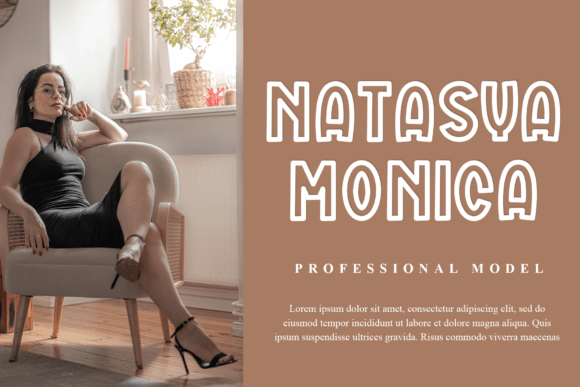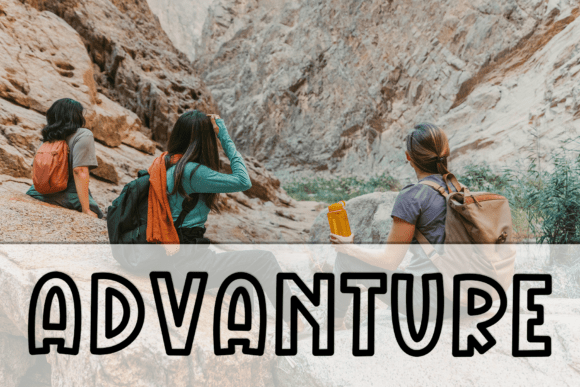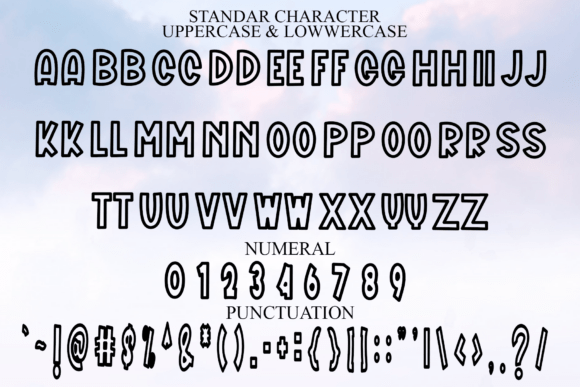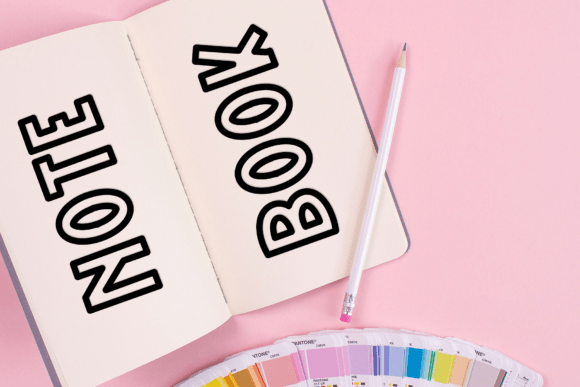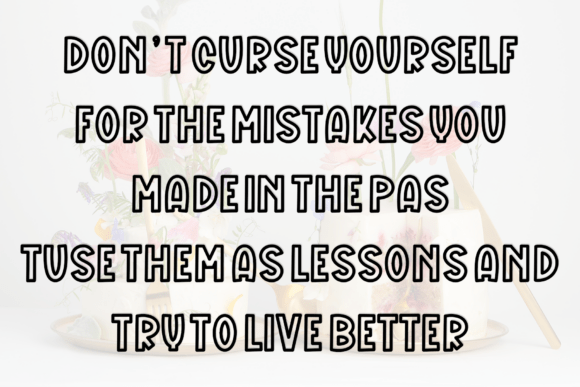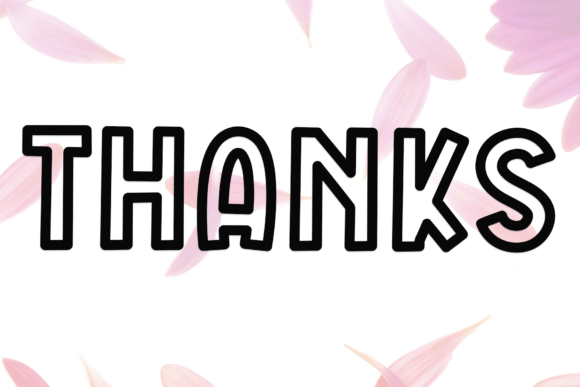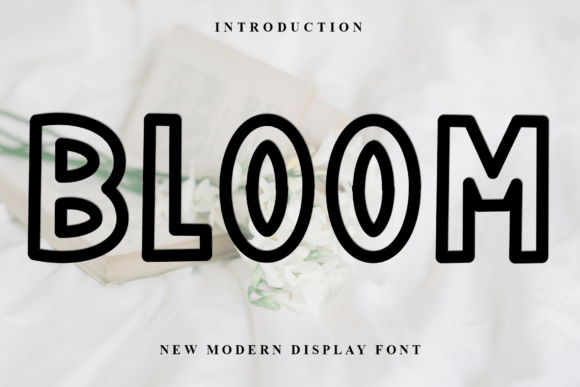
The Bloom Font: A Game-Changer for Designers and Crafters
I’ll never forget the moment I stumbled upon the Bloom font. I was working on a project for a client who wanted a unique and eye-catching design, but I was struggling to find the right font to bring their vision to life. That’s when I discovered Bloom, and it completely transformed my design. In this article, I’ll share my experience with the Bloom font, its features, and how to make the most of it in various design applications.
A Personal Review of Bloom Font
What I Love About Bloom Font
- ✨ Unique and distinctive strokes: Bloom font has a soft, special touch that sets it apart from other fonts.
- ✅ Versatile and meaningful: Its natural style makes it perfect for a wide range of design projects, from crafts to creative works.
- 🌈 Variety of characters: Bloom font offers a range of characters that can add visual interest to your designs.
While Bloom font is an excellent choice for many design projects, there are a few things to keep in mind:
- 🤔 Limited availability of certain characters: Some characters may not be available in the standard font set, but this can be addressed by using OpenType features or glyphs.
- ⚠️ May not be suitable for very small text sizes: Bloom font is designed to be eye-catching, but it may not be the best choice for very small text sizes, such as body text or captions.
The Story Behind Bloom Font
Bloom font was designed with the goal of creating a unique and eye-catching font that would add a touch of elegance and sophistication to any design project. The designer, who wishes to remain anonymous, was inspired by the natural world and the beauty of blooming flowers. The result is a font that’s both beautiful and functional, making it perfect for a wide range of design applications.
Q: What is the Bloom font?
A: The Bloom font is a beautiful and eye-catching font designed with a soft, unique touch.